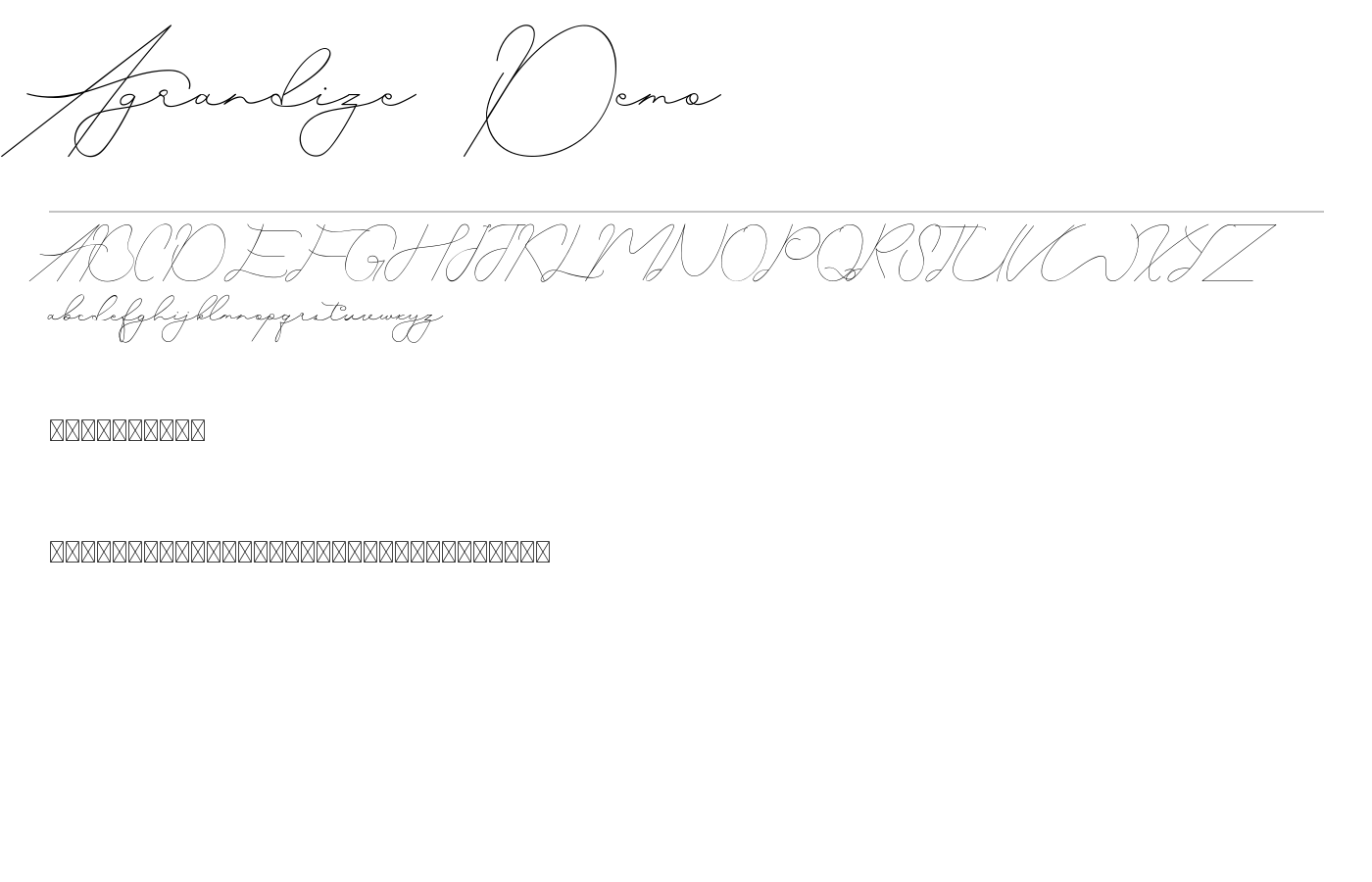
Agrandize Demo is an elegant, delicate script font featuring thin, flowing strokes that mimic graceful handwriting. Its light weight and refined curves make it ideal for sophisticated branding, invitations, and editorial projects that seek a stylish, personal touch. This font brings a sense of luxury and charm, perfect for designs that want to convey elegance and creativity.
Agrandize Demo Font
About Agrandize Demo Font
| Font family | Agrandize Demo Font |
| Designer | Yasri Ainun N & Sarah Suci P |